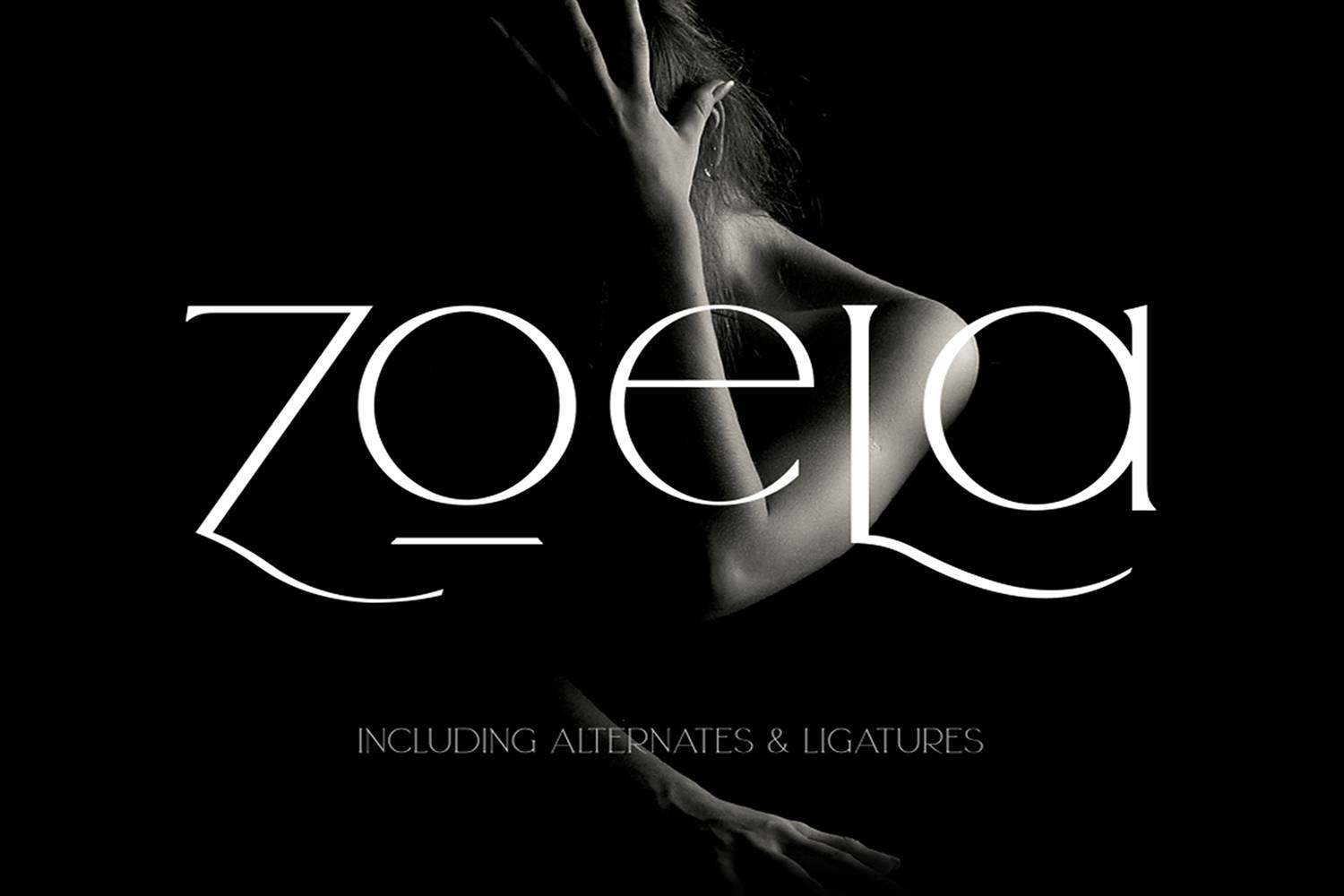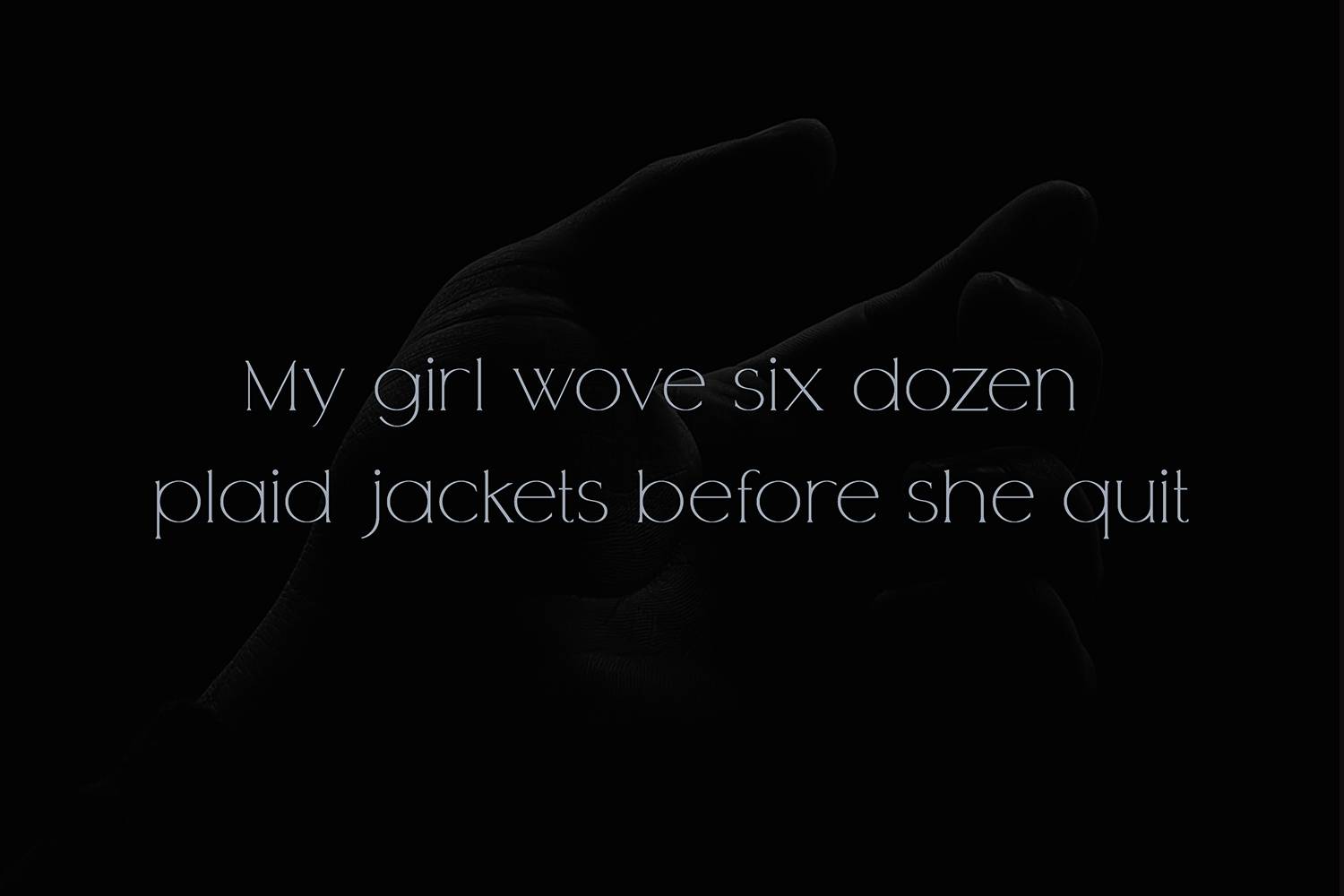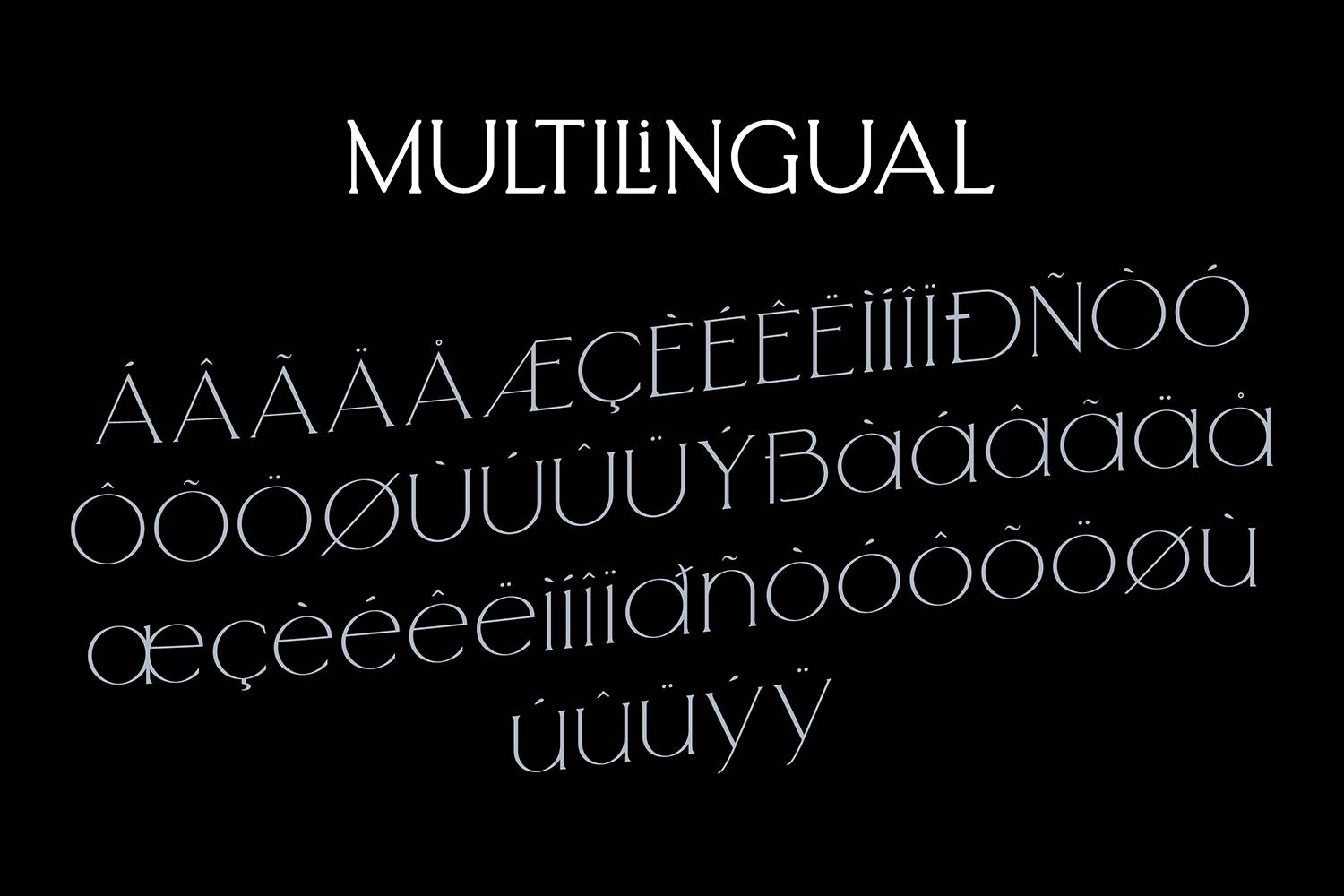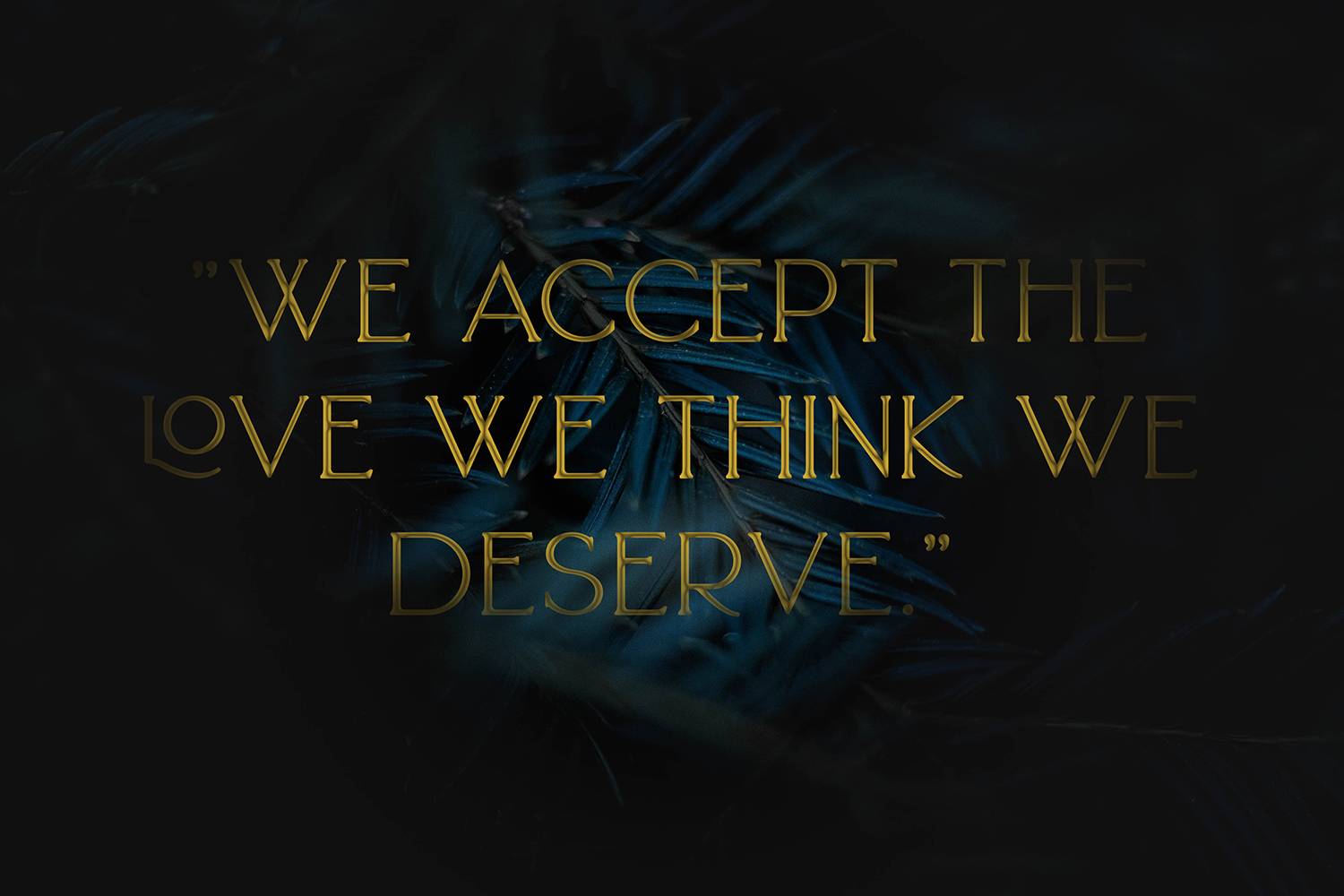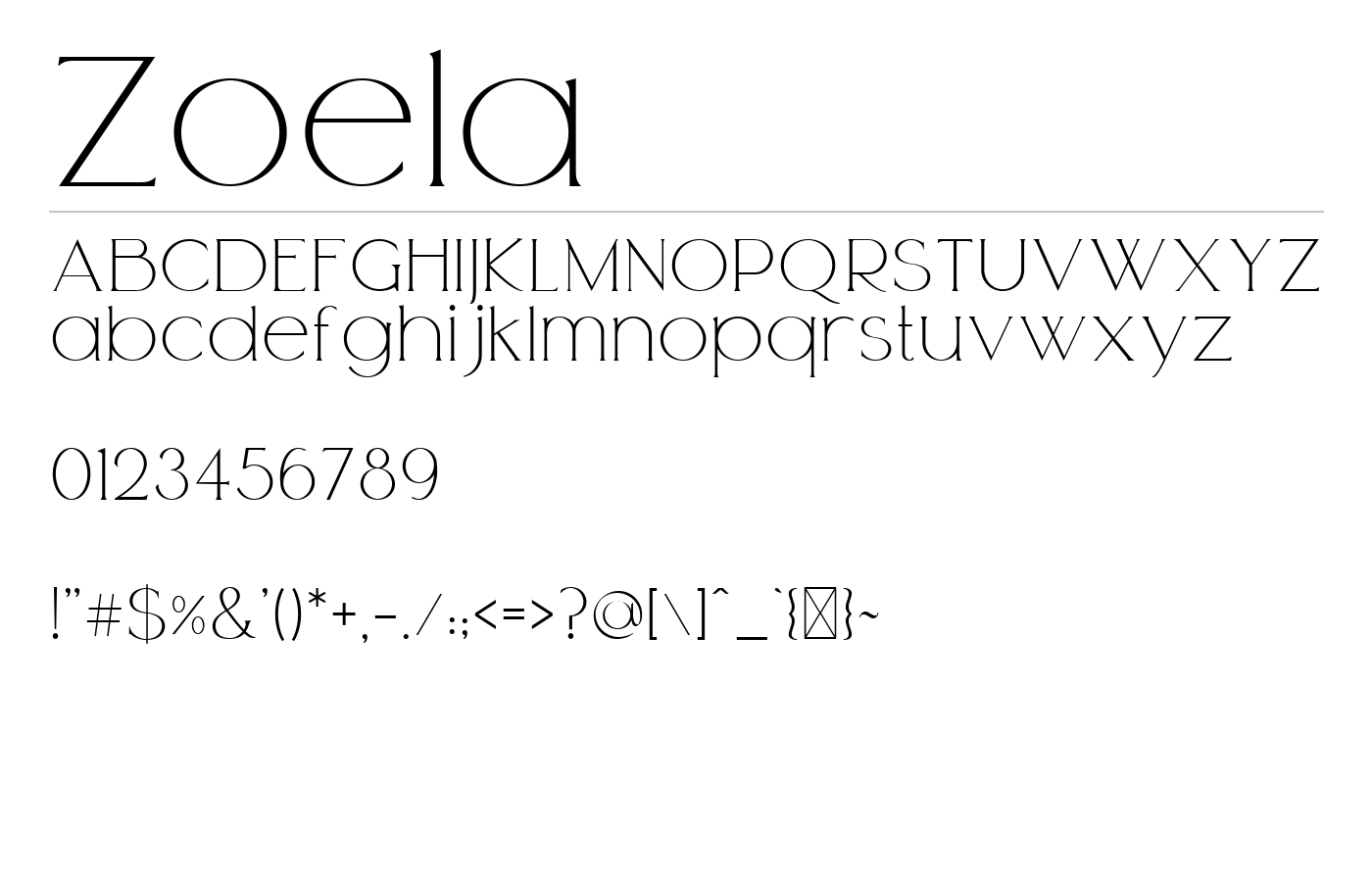
Zoela is a sleek, modern serif font with high contrast and elegant, thin strokes that give it a refined, delicate appearance. Its tall, narrow letterforms and unique details, like the single-story “a” and slender serifs, create a sophisticated and stylish vibe perfect for luxury branding, fashion editorials, and upscale logos. This font works best in headline or display settings where its graceful personality can truly shine.
Zoela Font
About Zoela Font